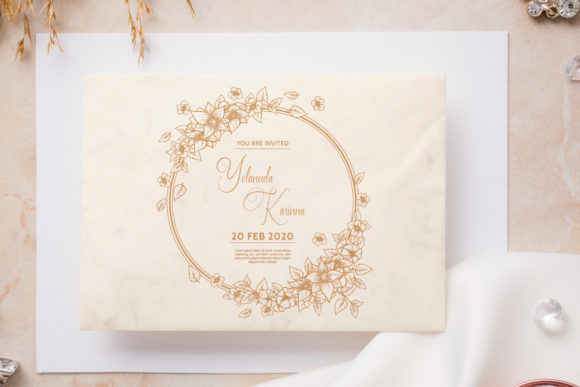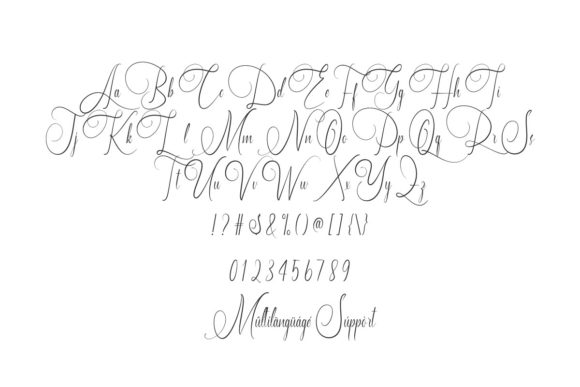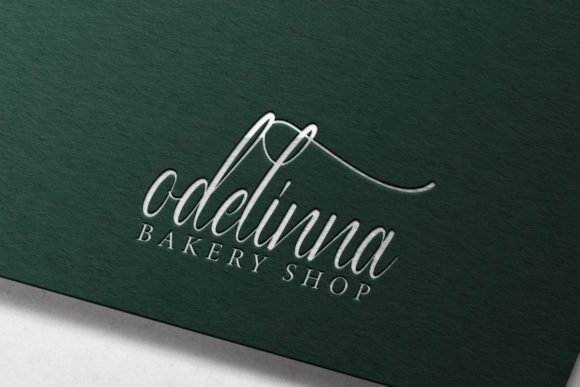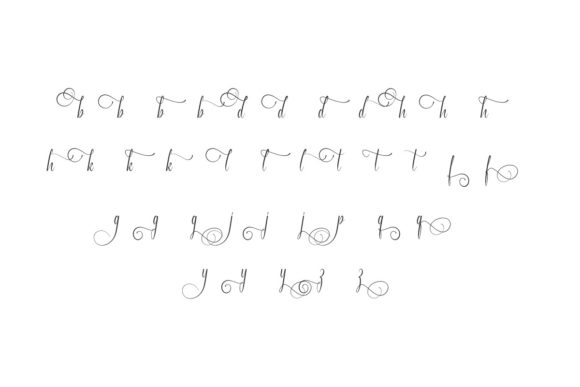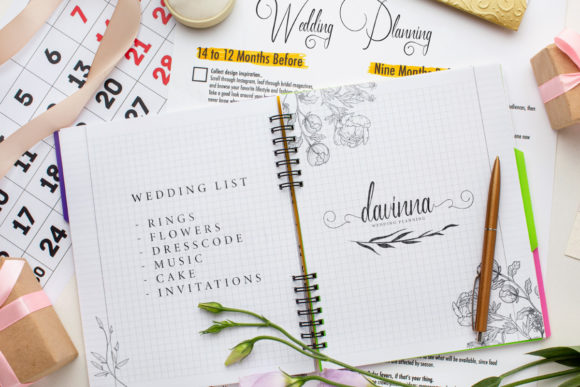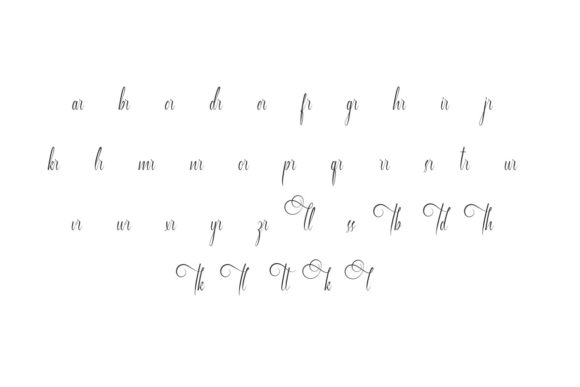
Introducing Danillous Font: Elevate Your Designs with Elegance and Sophistication
In the world of typography, a font can make or break a design. For designers and crafters seeking to add a touch of class and style to their projects, Danillous Font is an exceptional choice. This beautifully crafted script font boasts a delicate appearance in every letter, making it perfect for a variety of design applications. In this article, we’ll delve into the features and benefits of Danillous Font, and explore how it can elevate your designs to new heights.
A Classy and Stylish Script Font
Danillous Font is a stunning script font that exudes elegance and sophistication. Its delicate appearance is characterized by intricate details and smooth lines, making it an ideal choice for designs that require a touch of refinement. Whether you’re working on a branding project, crafting a wedding invitation, or creating a stylish blog post, Danillous Font is sure to impress.
One of the standout features of Danillous Font is its PUA (Private Use Area) encoding. This means that you can access all of the glyphs and swashes with ease, giving you greater flexibility and creative control over your designs. With PUA encoding, you can effortlessly navigate the font’s extensive character set, including alternates, ligatures, and ornaments.
Key Features of Danillous Font
- Delicate appearance: Danillous Font features a beautifully crafted script style with a delicate appearance in every letter.
- PUA encoded: Access all glyphs and swashes with ease, thanks to PUA encoding.
- Classy and stylish: Perfect for designs that require a touch of elegance and sophistication.
- Extensive character set: Includes alternates, ligatures, and ornaments to enhance your designs.
Design Applications for Danillous Font
Danillous Font is an incredibly versatile font that can be used in a wide range of design applications. Here are a few ideas to get you started:
- Branding and logos: Create a lasting impression with a custom logo that showcases your brand’s personality and style.
- Wedding invitations and stationery: Add a touch of elegance and sophistication to your wedding stationery with Danillous Font.
- Blog posts and articles: Elevate your blog posts and articles with a stylish and refined font that engages your readers.
- Social media graphics: Create eye-catching social media graphics that stand out from the crowd with Danillous Font.
Tips for Using Danillous Font
In conclusion, Danillous Font is an exceptional choice for designers and crafters seeking to add a touch of elegance and sophistication to their projects. With its delicate appearance, PUA encoding, and extensive character set, this classy and stylish script font is sure to elevate your designs to new heights. Whether you’re working on a branding project, crafting a wedding invitation, or creating a stylish blog post, Danillous Font is an excellent choice.